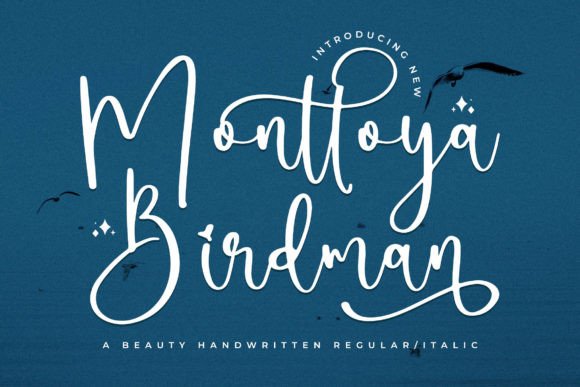
Behold, the glorious Monttoya Birdman font, a captivating script family designed to elevate your creative projects to breathtaking heights. Crafted with meticulous care by the skilled artisans at Glorytype Studio, this enchanting font exudes elegance, charm, and a touch of whimsy that will leave a lasting impression on your audience.
Journey through the realm of possibilities with Monttoya Birdman, a font that seamlessly adapts to your every need. Whether you're designing logos that speak volumes, crafting branding that exudes sophistication, or creating homeware designs that radiate warmth and charm, this versatile font has you covered. Unleash your imagination and watch as your projects come to life with a touch of Monttoya Birdman magic.
Embark on a typographic adventure with Monttoya Birdman, where every letter is a masterpiece. Adorn your product packaging with intricate details, making each item a collector's piece. Transform your mugs into canvases of inspiration with quotes that resonate, leaving a lasting impact on the hearts of your customers. Create posters that captivate and engage, drawing attention with their artistic flair. Elevate your shopping bags with a touch of elegance, turning them into fashion statements that reflect your unique style.
Monttoya Birdman is more than just a font; it's an experience. Immerse yourself in the world of creativity, where t-shirts become wearable works of art, book covers transport readers to enchanted realms, and name cards leave a lasting impression of professionalism. Craft invitation cards that set the tone for unforgettable events, greeting cards that warm hearts with their heartfelt messages, and labels that add a touch of sophistication to your products.
With Monttoya Birdman, the possibilities are endless. Discover the beauty of photography enhanced by the delicate strokes of this exquisite font, or create mesmerizing watermarks that leave a subtle yet powerful mark on your work. Make your special events even more memorable with designs that reflect the joy and excitement of the occasion.
Monttoya Birdman, a symphony of creativity that awaits your touch. Let your imagination soar as you explore the boundless possibilities of this remarkable font. Transform your projects into works of art, leaving a legacy of beauty and inspiration that will be treasured for generations to come.